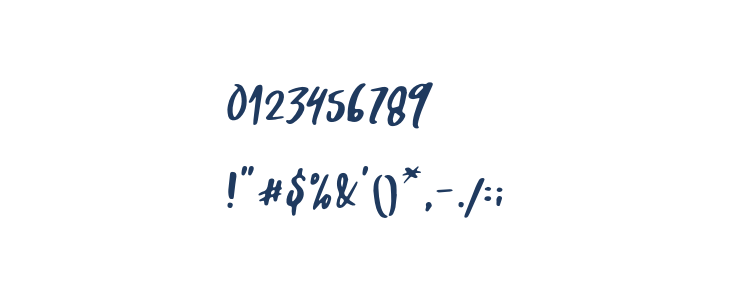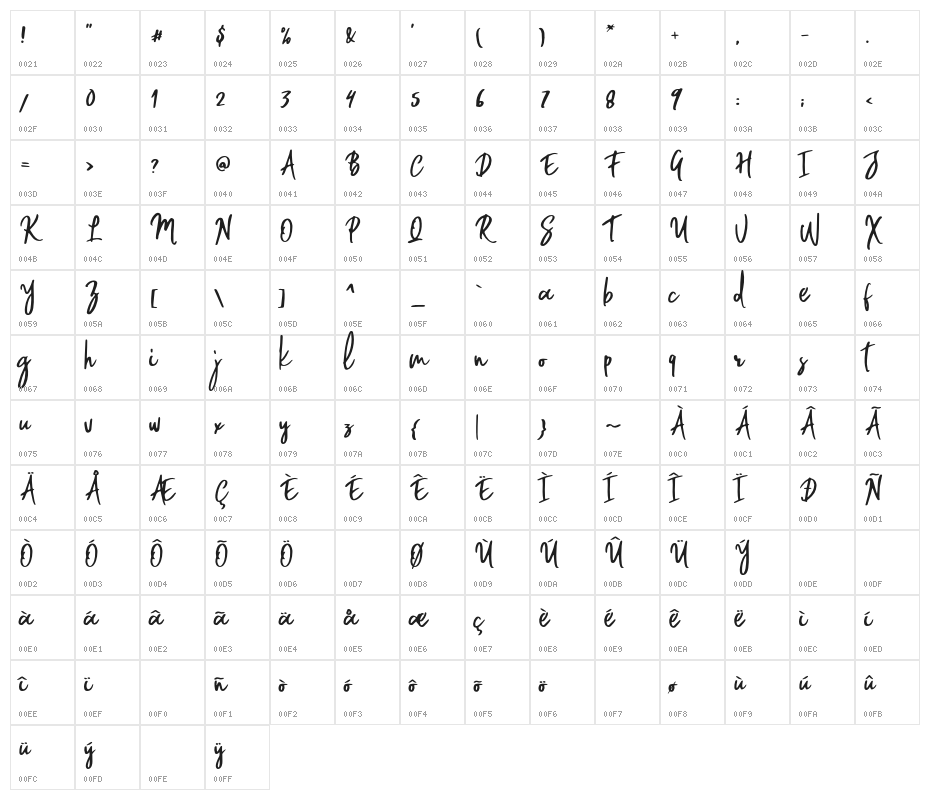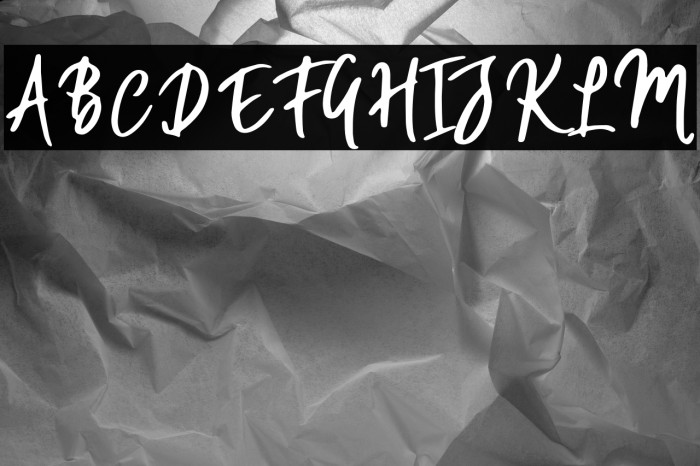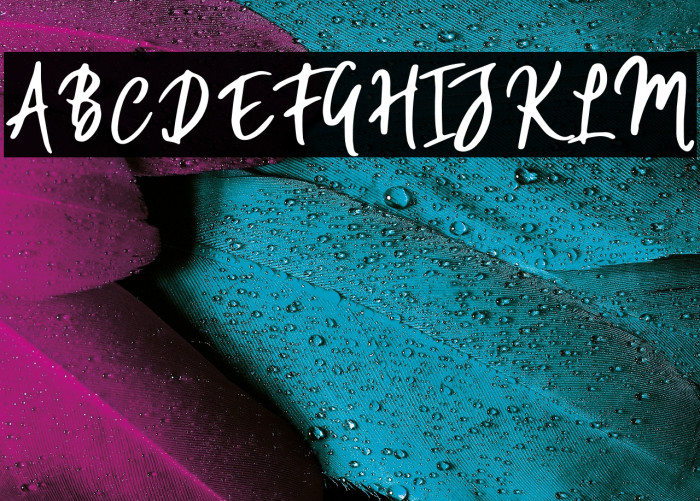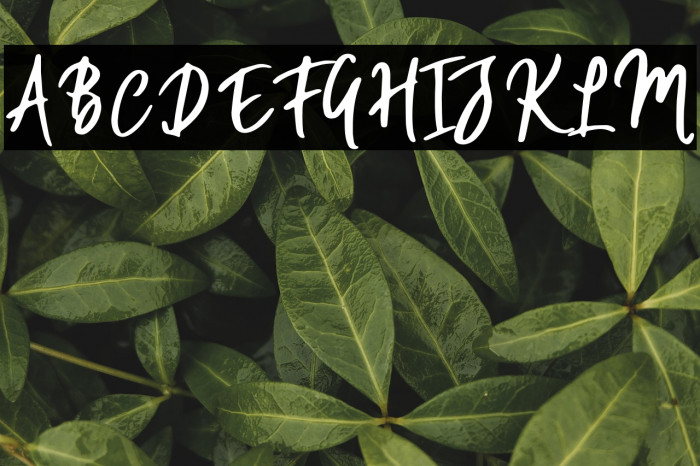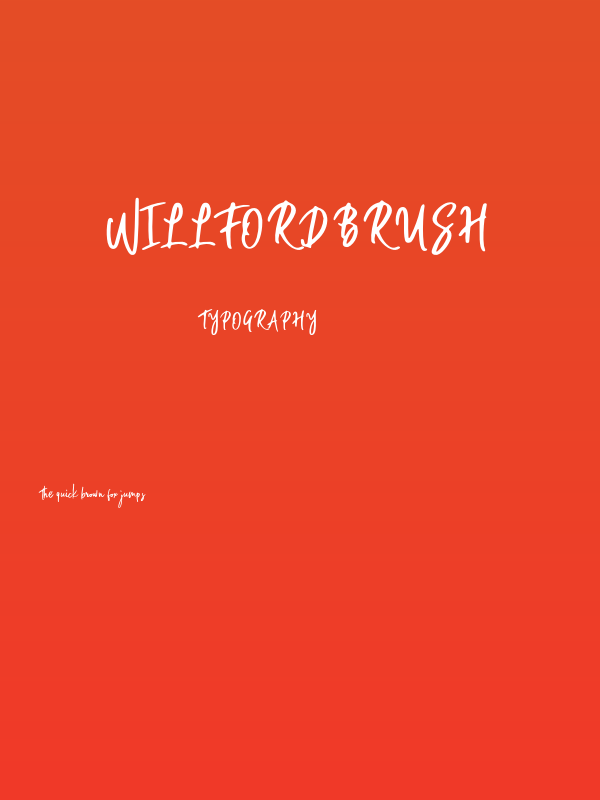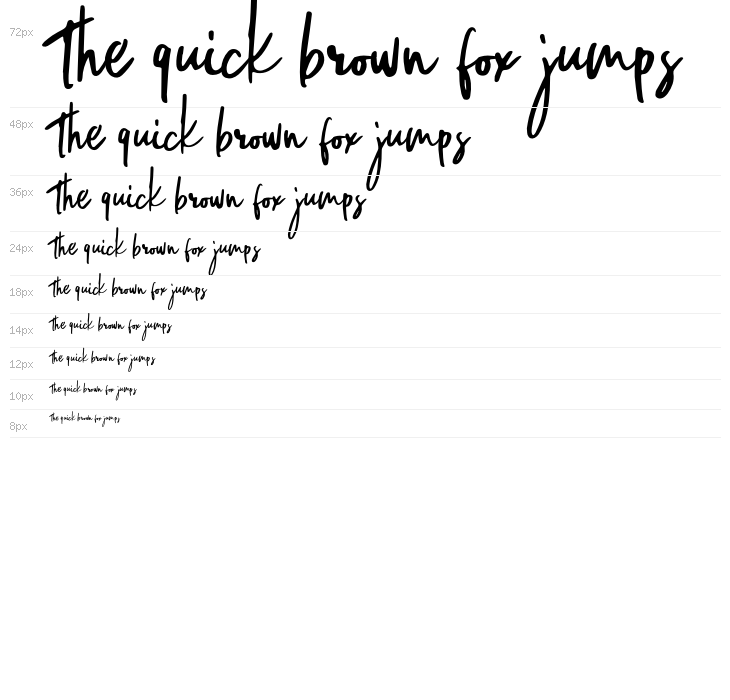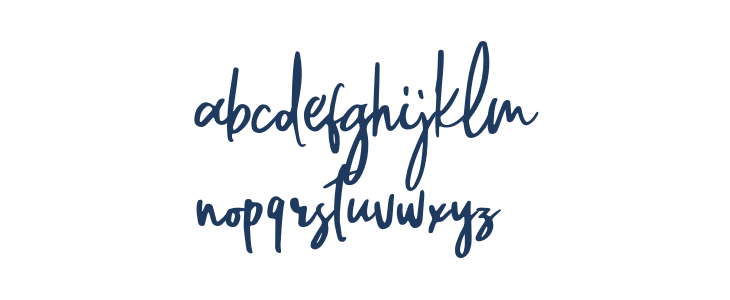
WillfordBrush Font
WillfordBrush Description
This font exudes a lively and dynamic character with its brush script style. The letters are crafted with a fluid, hand-drawn appearance, giving it a personal and artistic touch. The uppercase letters are bold and expressive, while the lowercase letters maintain a consistent flow, enhancing readability. Numbers and special characters are designed to match the energetic style, making them suitable for creative projects. The strokes vary in thickness, adding a natural, handcrafted feel. This font is perfect for projects that require a personal, artistic flair.